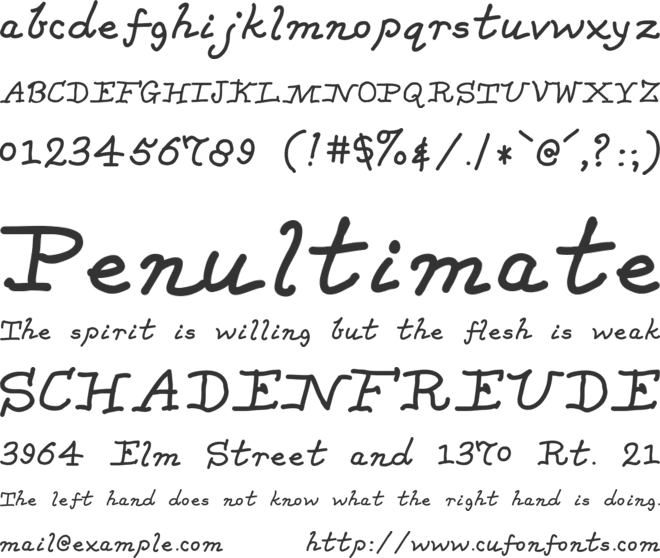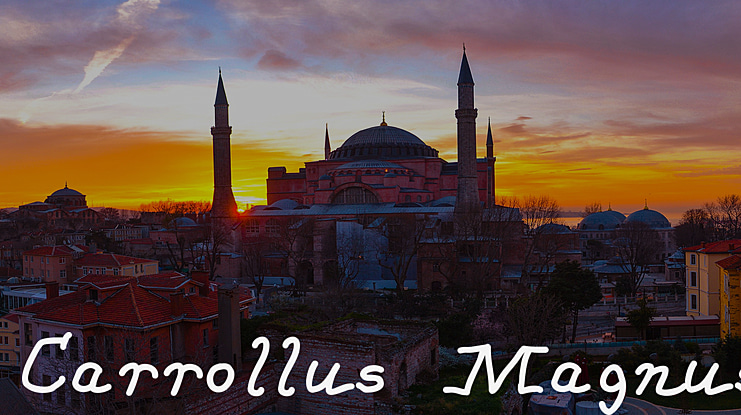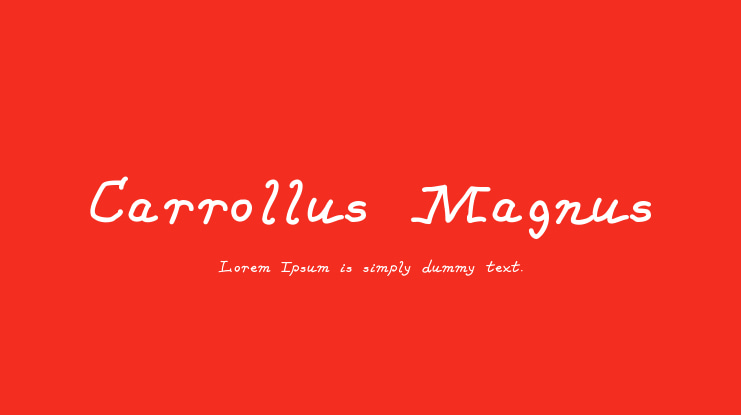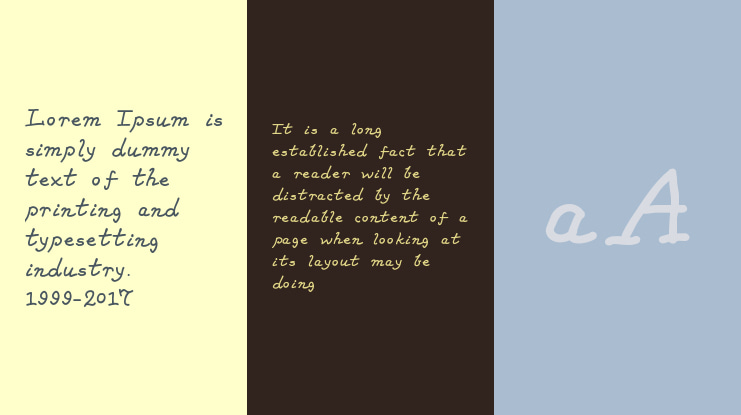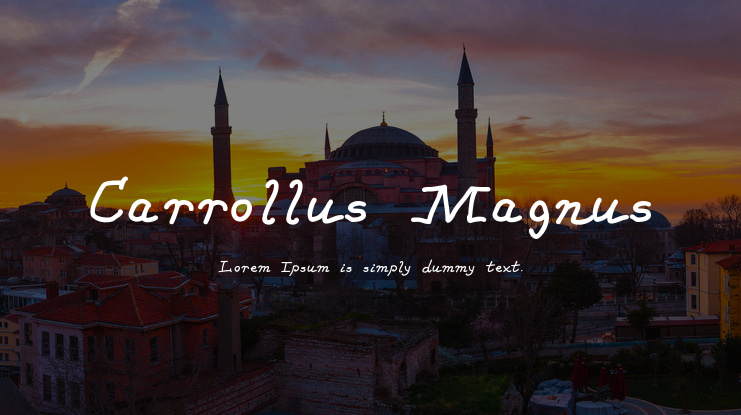
Carrollus Magnus Font
If I made a half-hearted attempt at forging Lewis Carroll's handwriting, it might look something like this. It is a riff on Jaz's classic font Lewis Carroll but with a more even line weight.